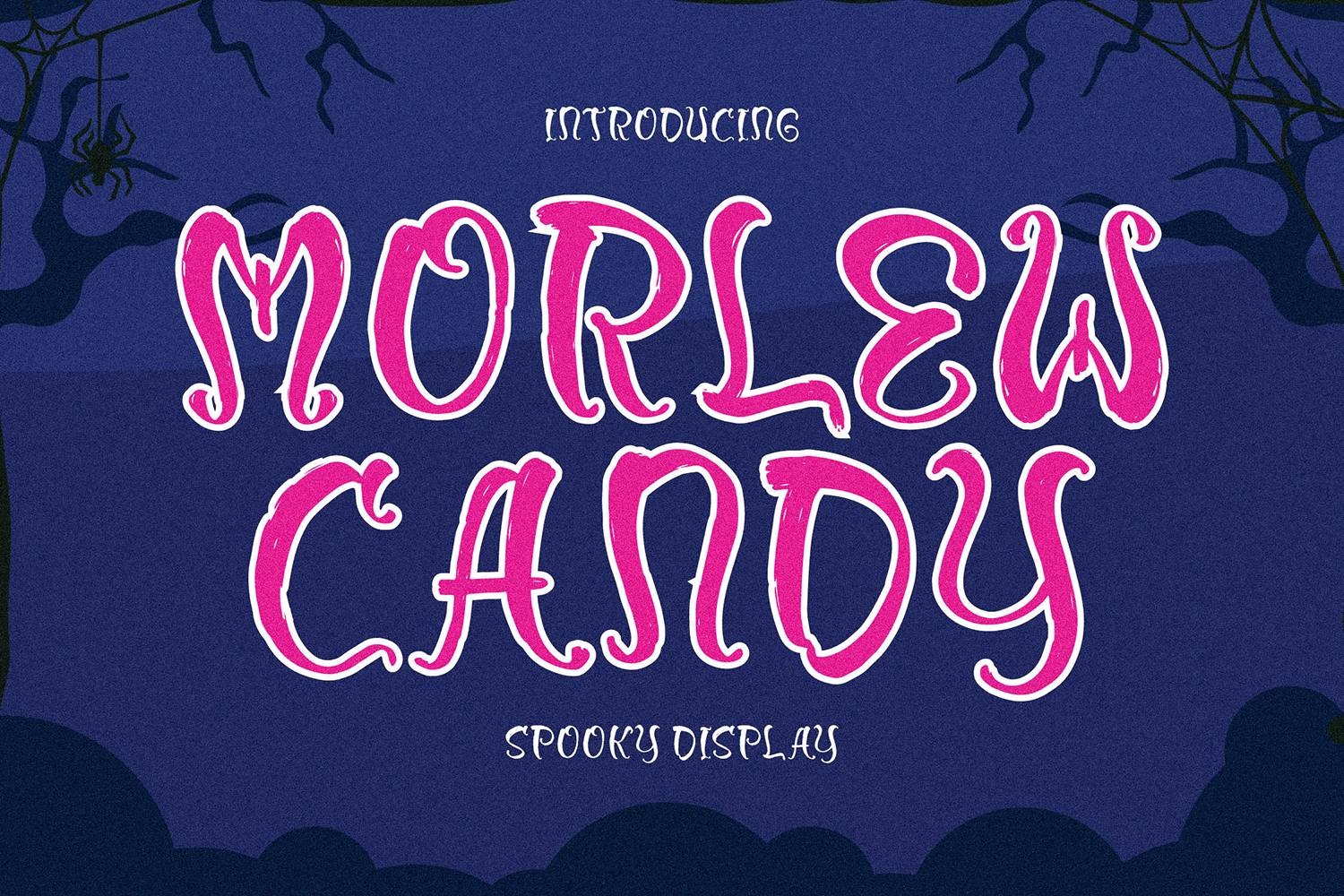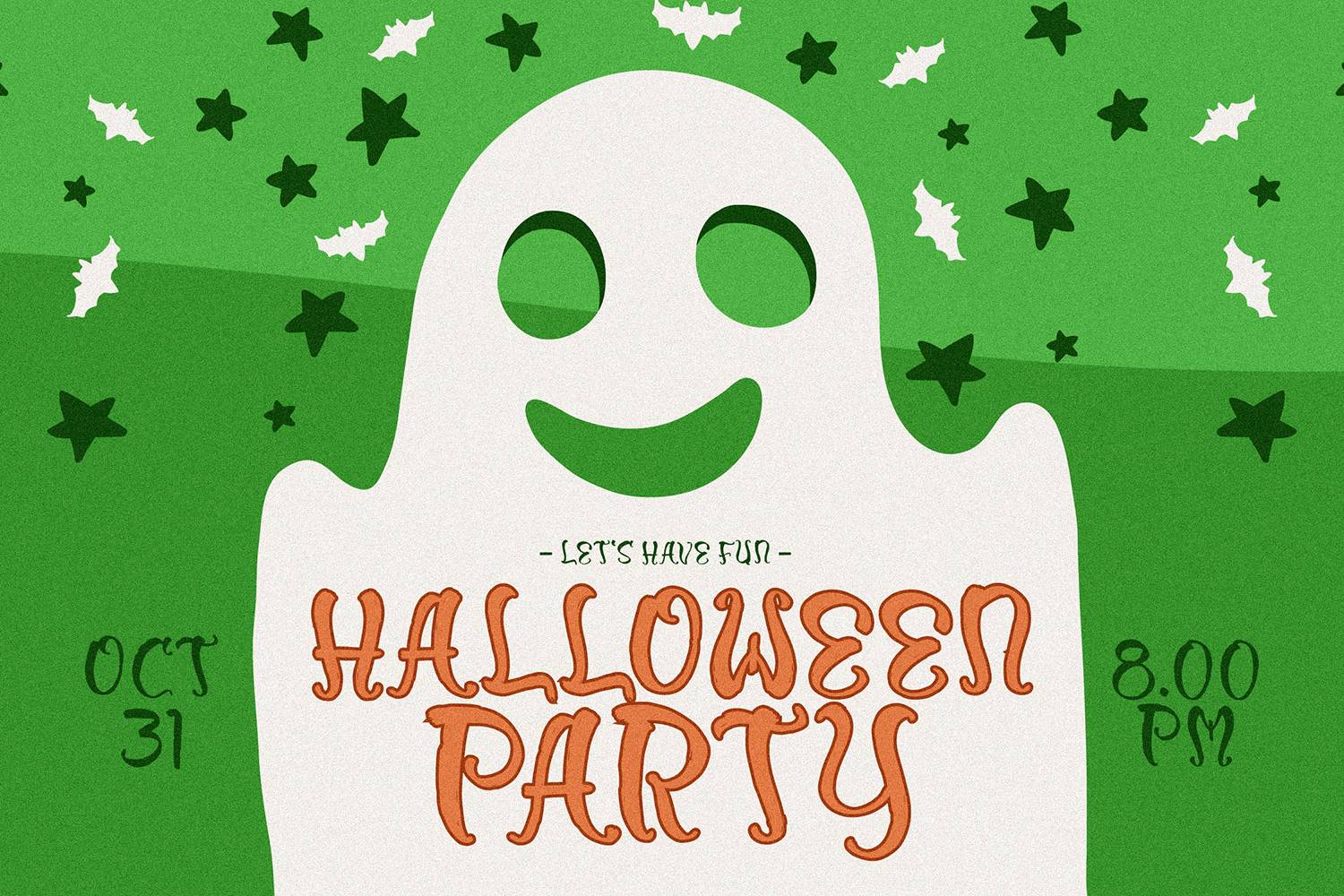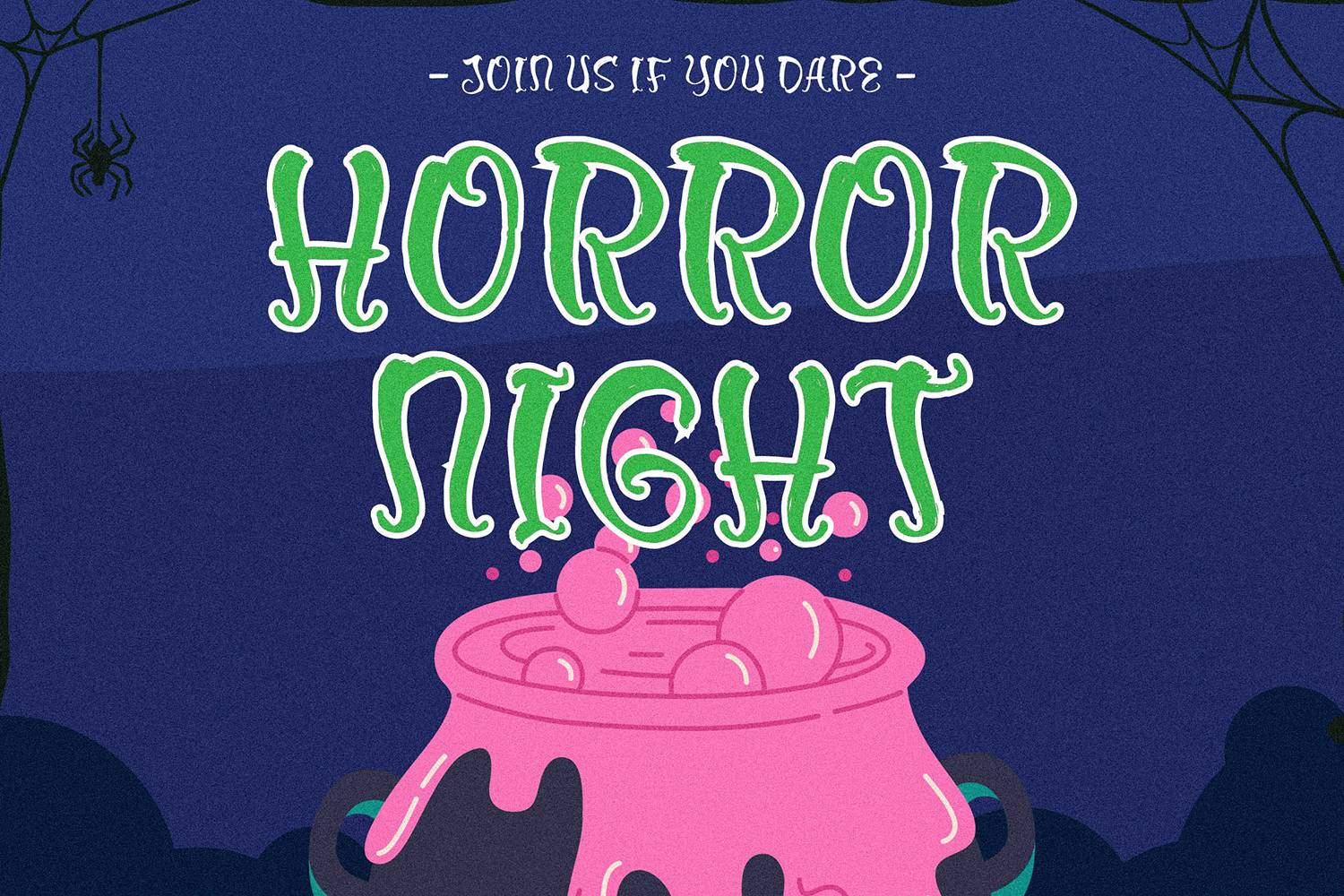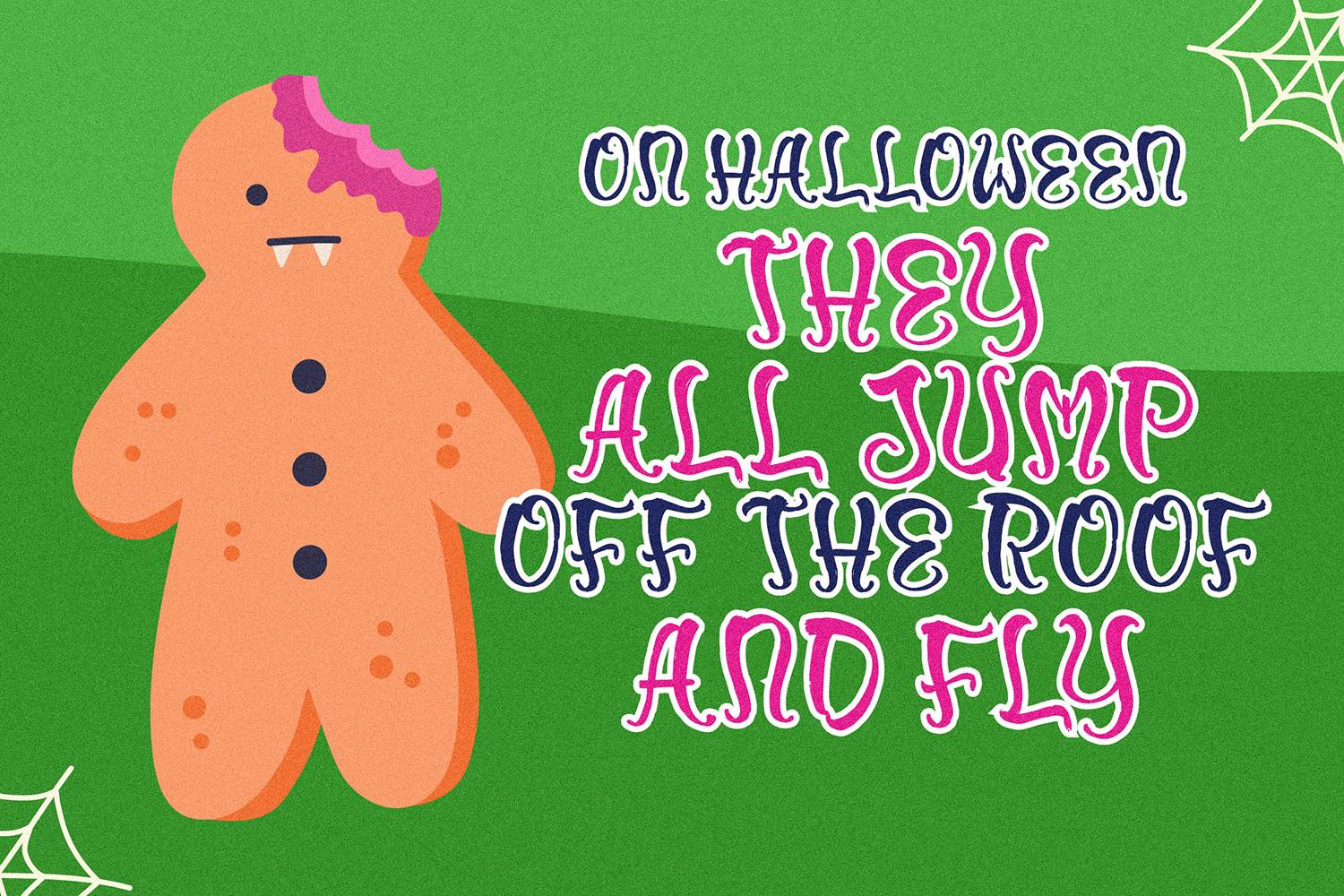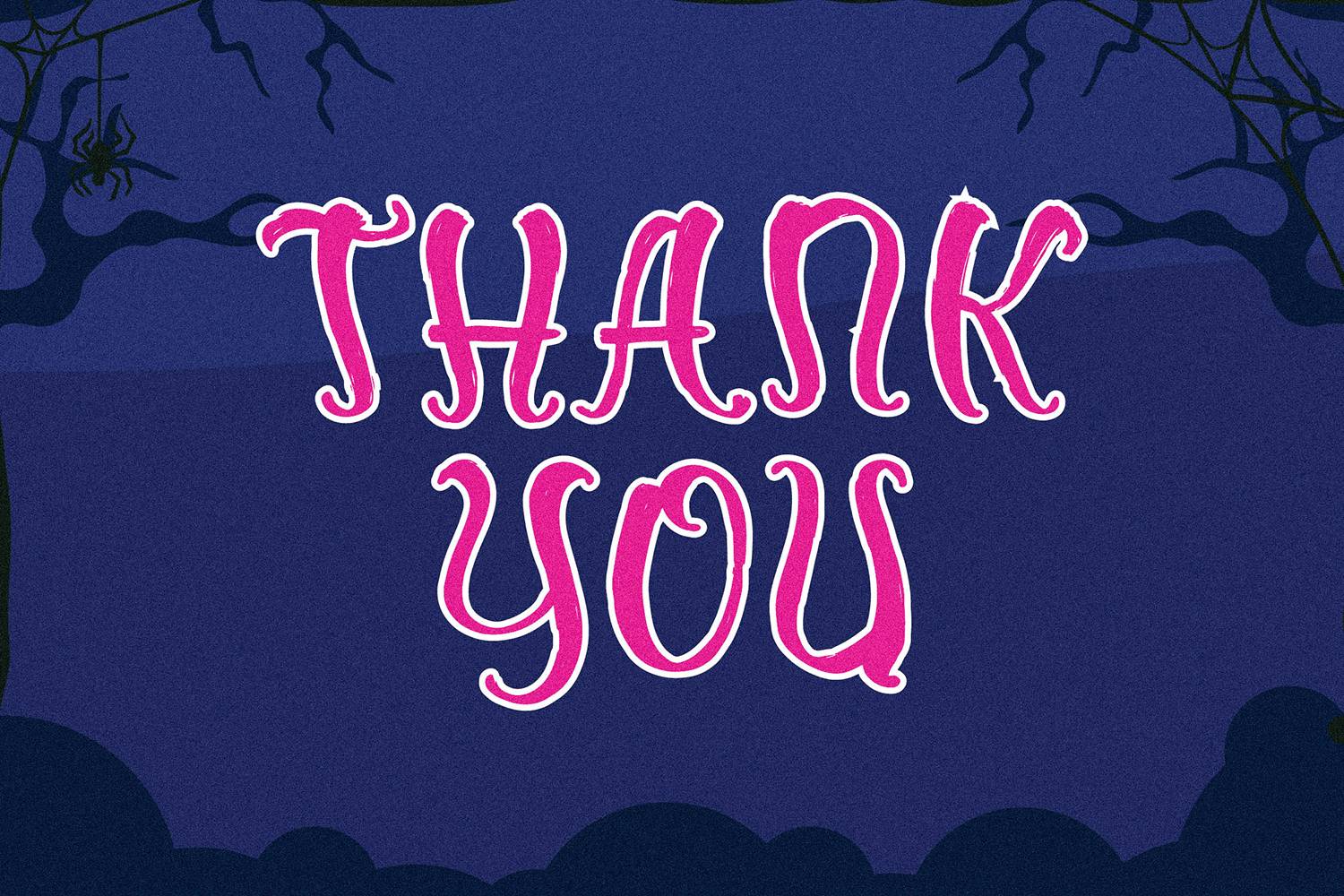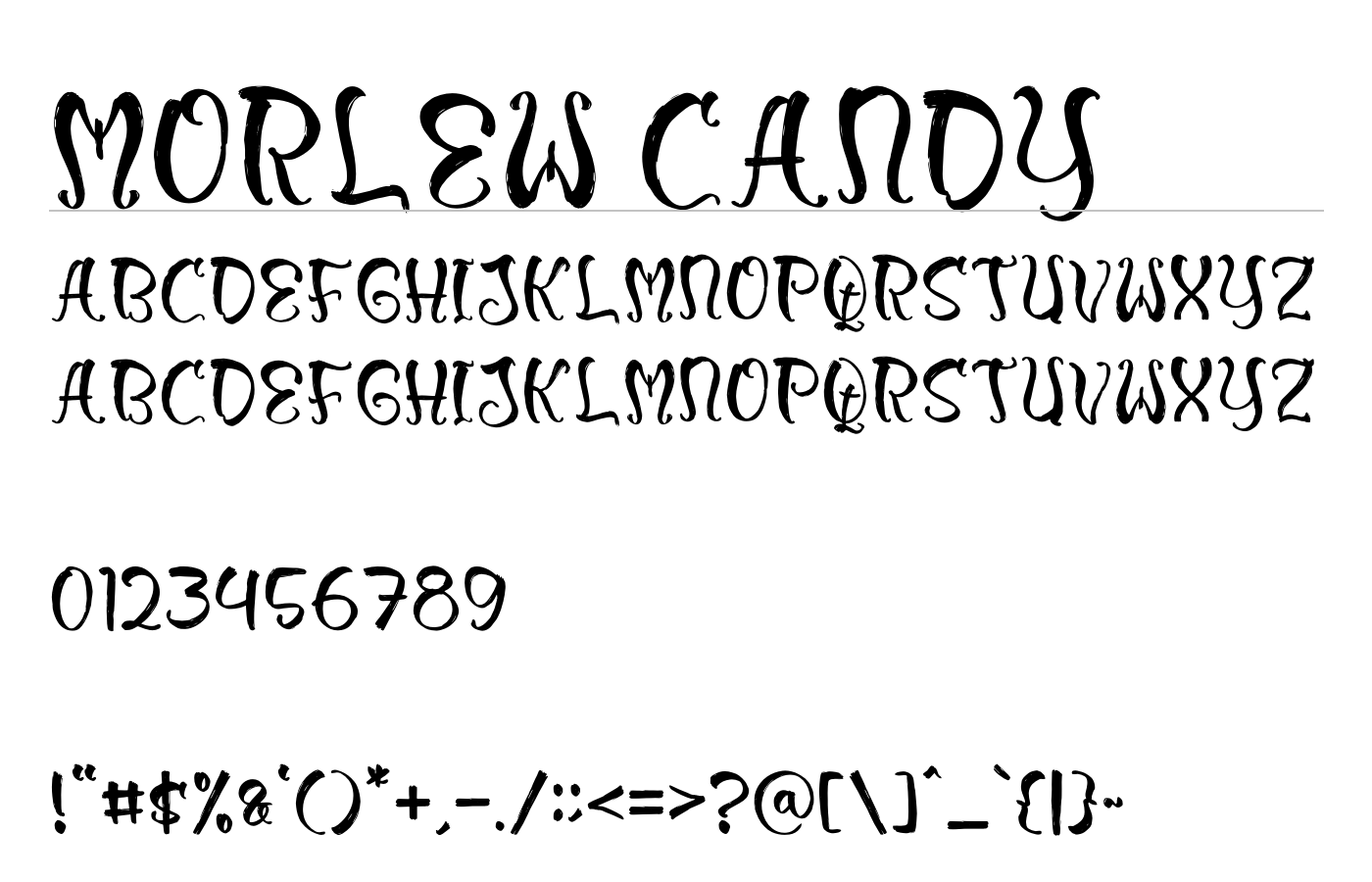
Morlew Candy is an artistic, playful display font with irregular and whimsical strokes that give it a hand-drawn, slightly spooky feel. Its quirky letterforms and uneven lines make it perfect for creative projects, Halloween themes, or any design that needs a unique, eye-catching touch with a casual, fun personality. This font works best in headlines, logos, and packaging where personality and style are key.
Morlew Candy Font